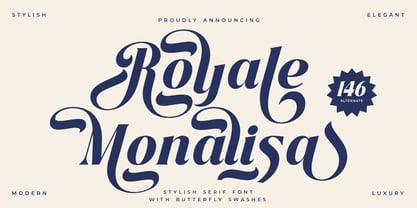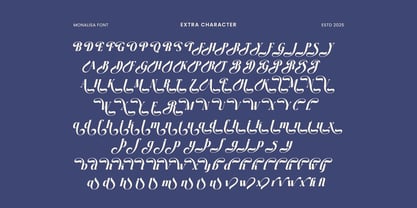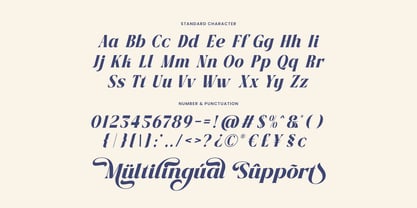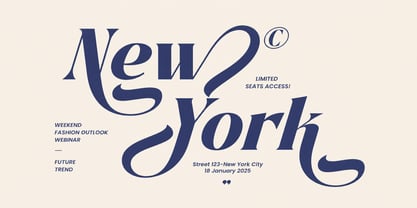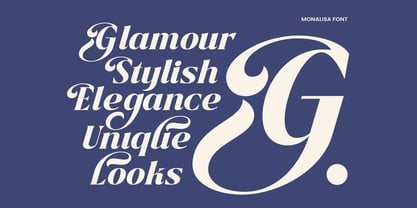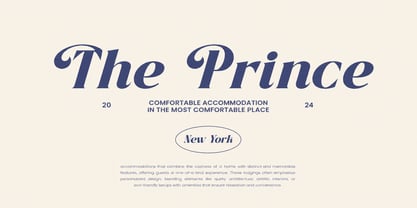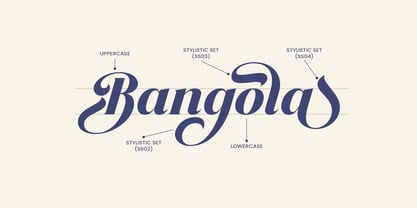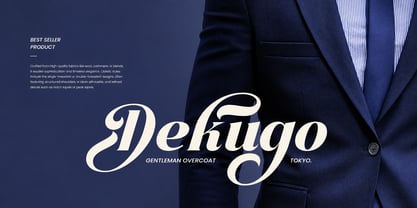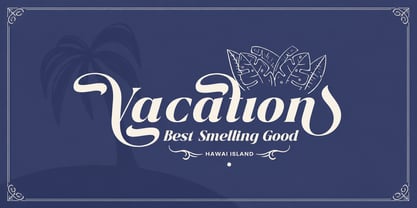
Royale Monalisa
Royale Monalisa – Elegant Serif Font with Butterfly Swash
Royale Monalisa is an elegant serif font designed to bring timeless beauty and artistic charm to your creative projects. Featuring refined letterforms and graceful curves, this typeface captures a luxurious and sophisticated aesthetic that instantly elevates any design.
The most distinctive feature of Royale Monalisa is its beautiful butterfly-inspired swashes. Each character is enhanced with delicate beginning and ending swash tails that resemble the soft wings of a butterfly, creating a whimsical and enchanting visual effect. These decorative details give your typography a sense of movement, elegance, and personality.
Carefully crafted for versatility, Royale Monalisa works perfectly across a wide variety of design applications. Whether you’re creating logos, quotes, branding materials, blog graphics, or social media designs, this font adds a graceful and stylish touch that makes your work stand out.
Royale Monalisa is especially ideal for special occasions and seasonal projects. From wedding invitations and birthday cards to Easter decorations and holiday designs, its elegant swashes create a romantic and memorable look. The font also pairs beautifully with themes like summer, spring, autumn, and Thanksgiving, making it a wonderful choice for seasonal creative projects.
For crafters and makers, Royale Monalisa is also a fantastic option for Cricut projects, embroidery designs, and decorative lettering. The swash variations give you the flexibility to create unique compositions and personalized designs with ease.
With its harmonious balance of elegance and creativity, Royale Monalisa helps transform simple typography into a stunning visual centerpiece.
Key Features
Elegant Serif Font
A timeless serif typeface with refined and sophisticated letterforms.
Butterfly-Inspired Swashes
Beautiful beginning and ending swash tails that add decorative elegance.
Decorative Yet Readable
Designed to maintain clarity while offering artistic detail.
Perfect for Creative Projects
Ideal for branding, invitations, crafts, and seasonal designs.
Versatile Typography
Works beautifully in both digital and print designs.
Multilingual Support
Extended characters for international design projects.
Perfect For
• Logo Design & Branding
• Wedding Invitations
• Quotes & Blog Graphics
• Greeting Cards & Stationery
• Cricut & Craft Projects
• Embroidery Designs
• Seasonal Designs (Spring, Summer, Autumn, Thanksgiving)
• Birthday & Holiday Projects
Bring Elegance to Your Designs
If you’re looking for a typeface that blends timeless serif elegance with artistic butterfly swashes, Royale Monalisa is the perfect addition to your font collection. Its graceful details and versatile design make it ideal for designers, crafters, and creatives who want to create beautiful, memorable typography.